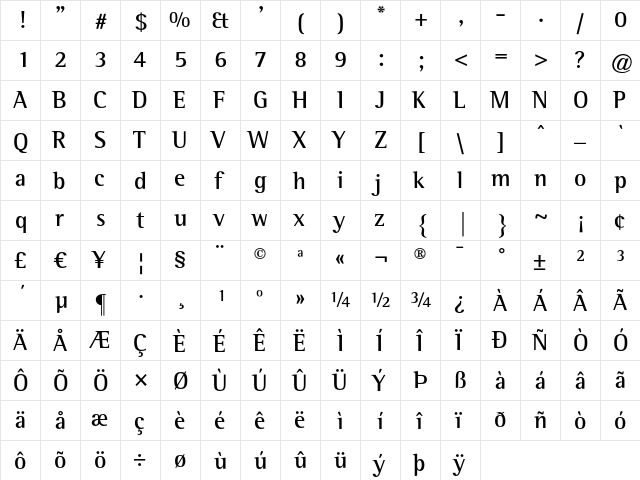
AgfaRotisSemiSerif Bold Font Preview
AgfaRotisSemiSerif Bold
Design Context for AgfaRotisSemiSerif Typeface
AgfaRotisSemiSerif brings classic typographic sensibility to the table — its serifs and measured letterforms reflect centuries of print heritage. The heavy weight commands attention and anchors typographic hierarchies.
Pro Tip: Use AgfaRotisSemiSerif for editorial body copy and considered headline work. Pair with a neutral sans for UI elements or captions to create a classic hierarchy.